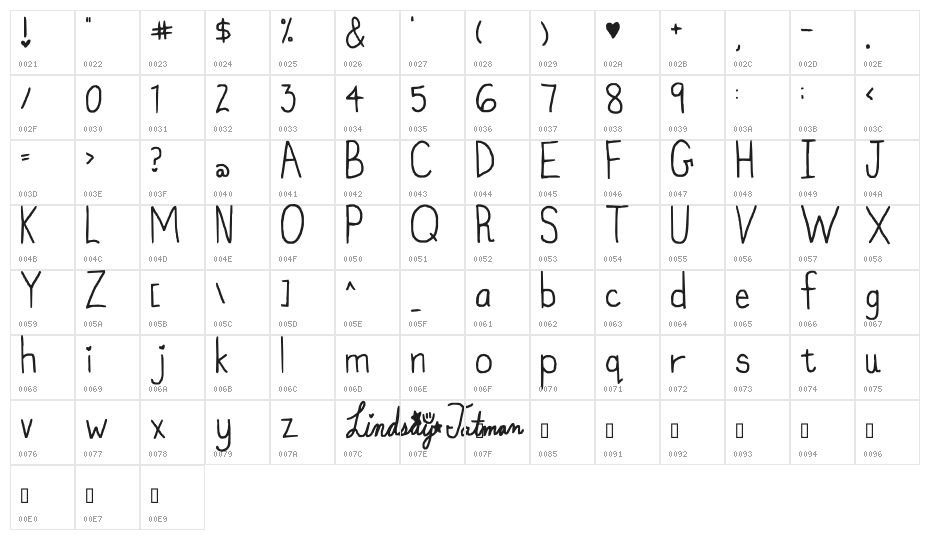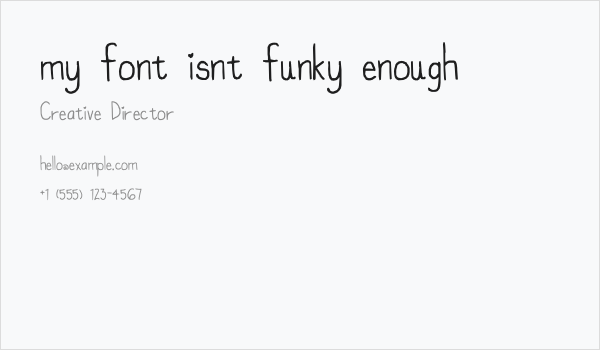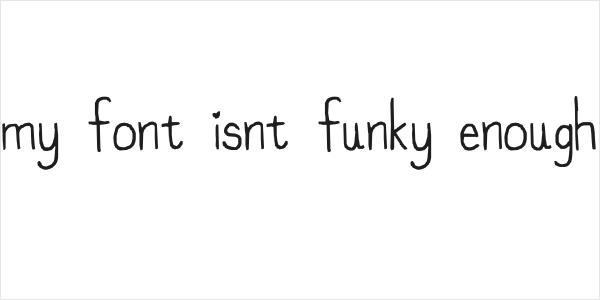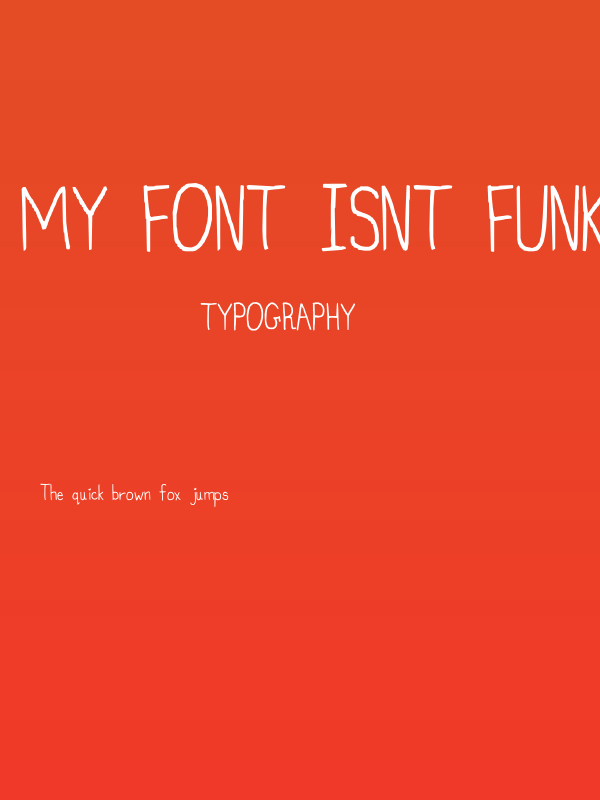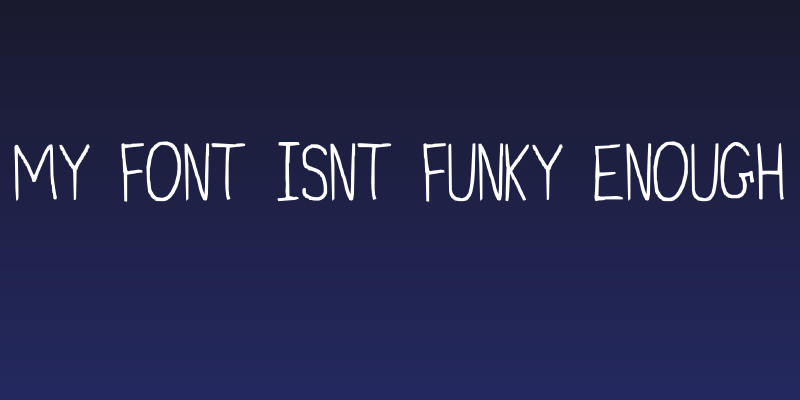
my font isnt funky enough Font
my font isnt funky enough Description
This playful and whimsical font features a hand-drawn, casual style that exudes a sense of fun and creativity. The letters are unevenly shaped, with a slightly irregular baseline, giving it a quirky and informal appearance. The uppercase and lowercase characters maintain a consistent style, with rounded edges and a friendly demeanor. The numbers and special characters follow the same playful theme, making them suitable for a variety of creative projects. This font is perfect for designs that require a personal touch, such as greeting cards, children's books, or playful branding.
| Overall Style | Whimsical |
| Proposed Projects | Ideal for greeting cards, children's books, playful branding, and creative projects. |